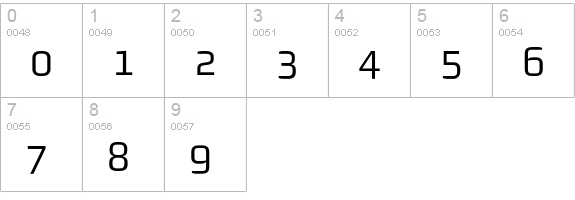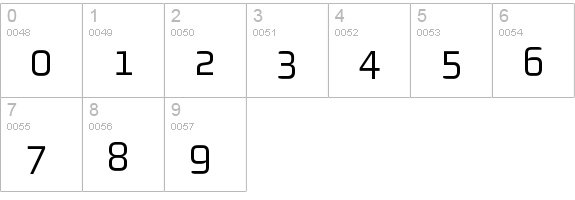
MorganSnExpert Font Details
MorganSnExpert font is a versatile and stylish typeface that exudes professionalism and elegance. Its sleek and modern design makes it perfect for a wide range of projects, from branding to editorial design. The crisp lines and sharp angles of this font give it a contemporary feel that is sure to make your text stand out. The best part? MorganSnExpert font is available for free download at FontsMarket.com. This means you can easily access this high-quality font for your projects without any cost. Don't miss out on the opportunity to enhance your designs with the sophistication and uniqueness of MorganSnExpert font. Download it today and elevate your typography game to the next level.